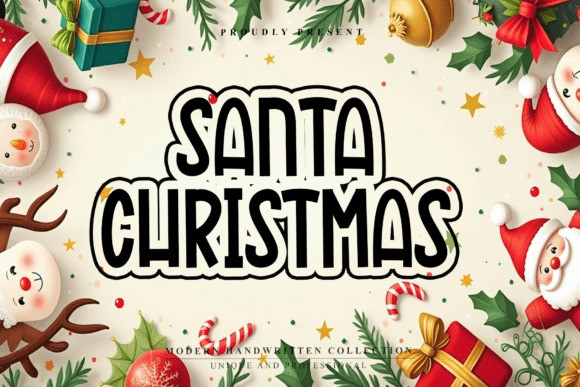
Santa Christmas Display Font
Santa Christmas Display Font is a casual handwritten display font that radiates warmth and personality. Featuring smooth strokes, natural curves, and easy-flowing letterforms, it captures the charm of authentic handwriting with a modern, approachable feel.
Ideal for quotes, invitations, branding, and social media posts, it adds a personal and friendly touch to any design. With its effortless style and versatile character, this font delivers both readability and charm.